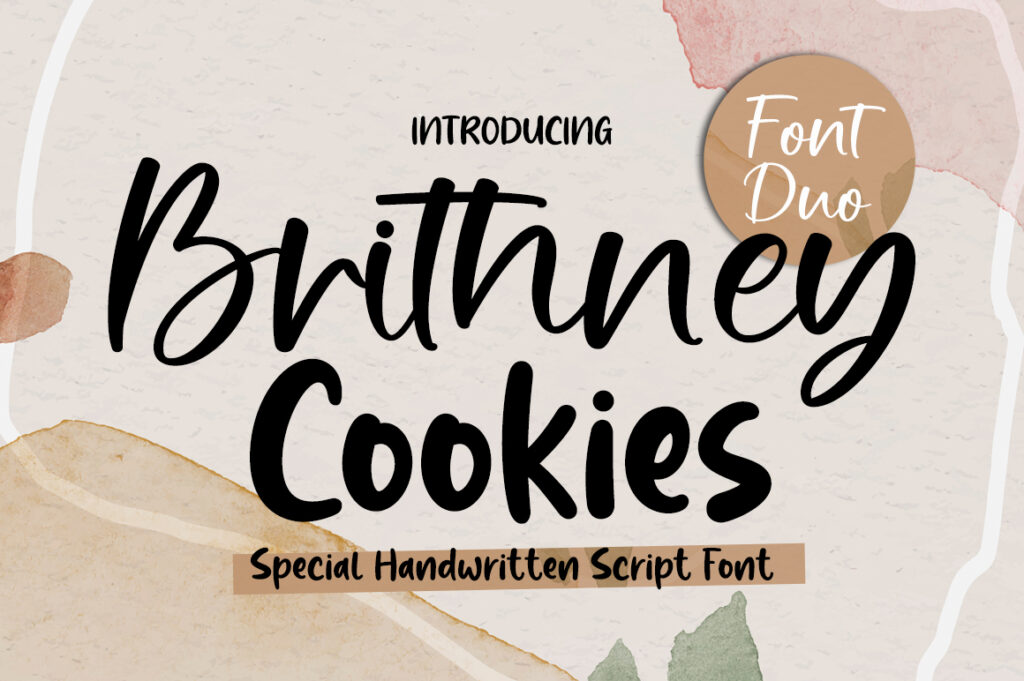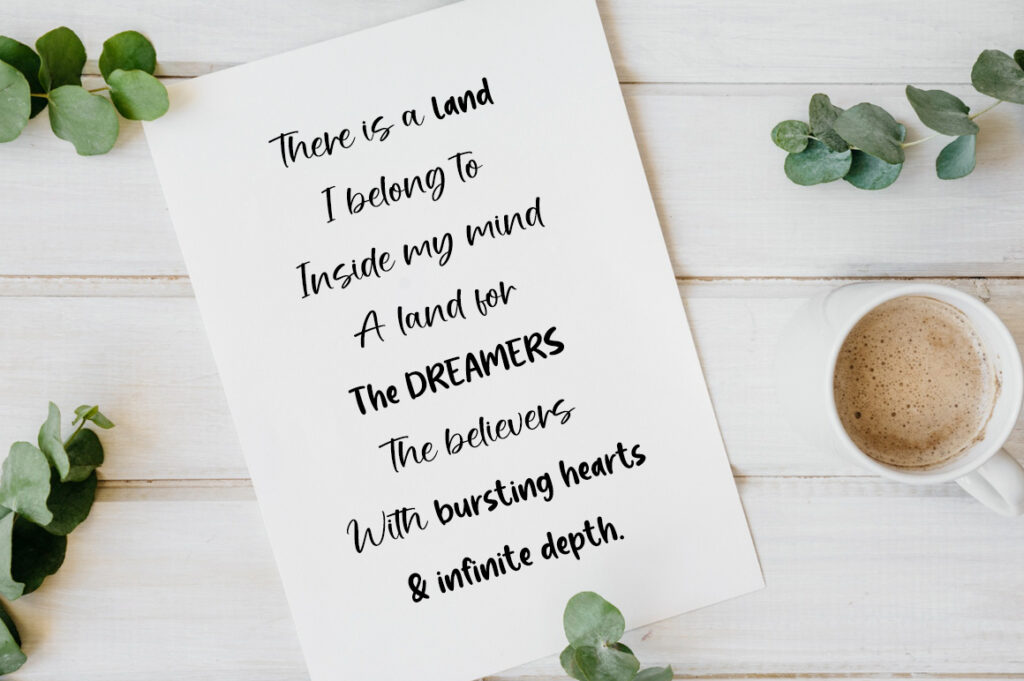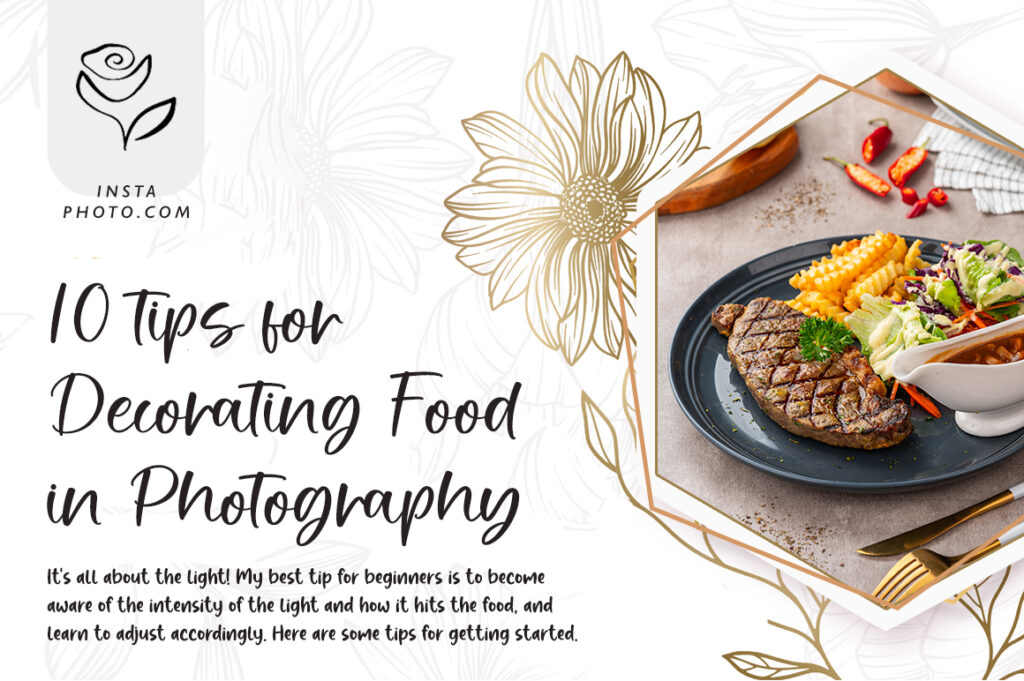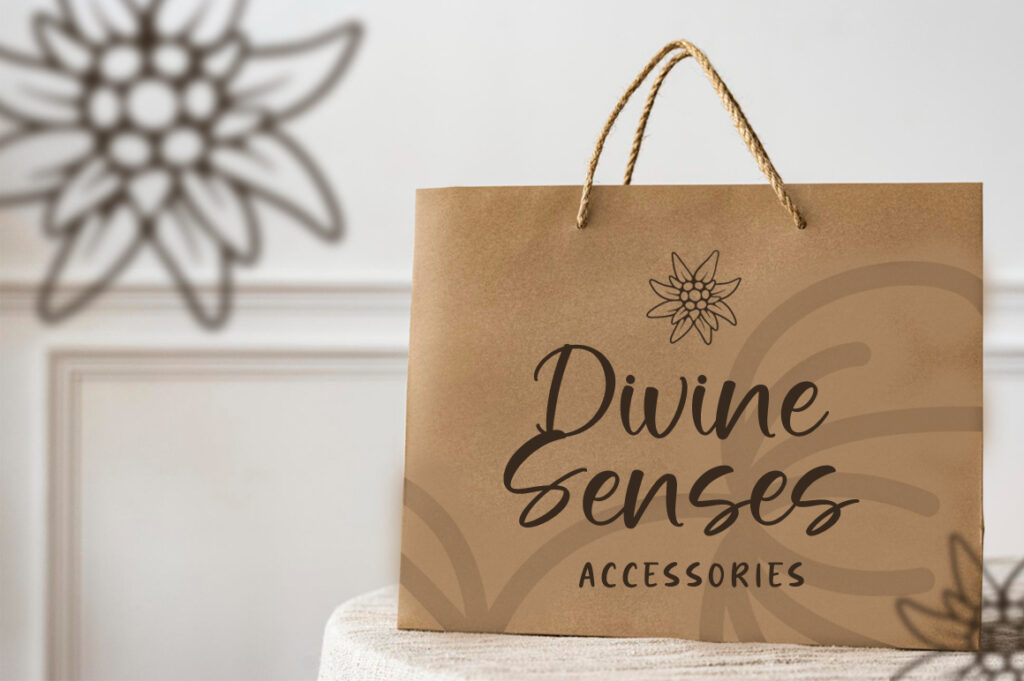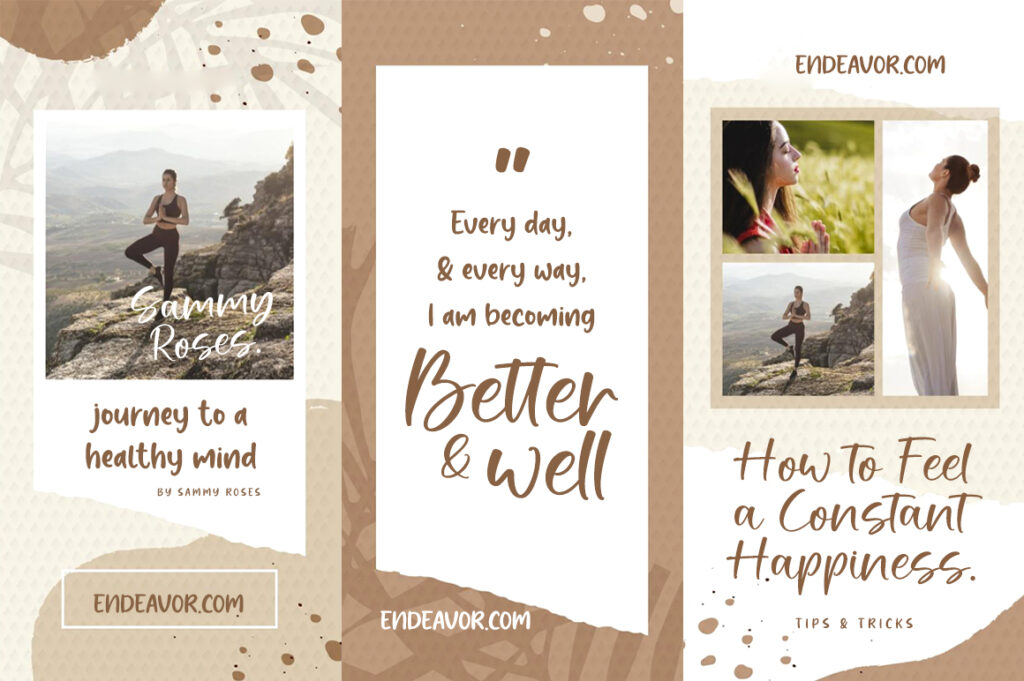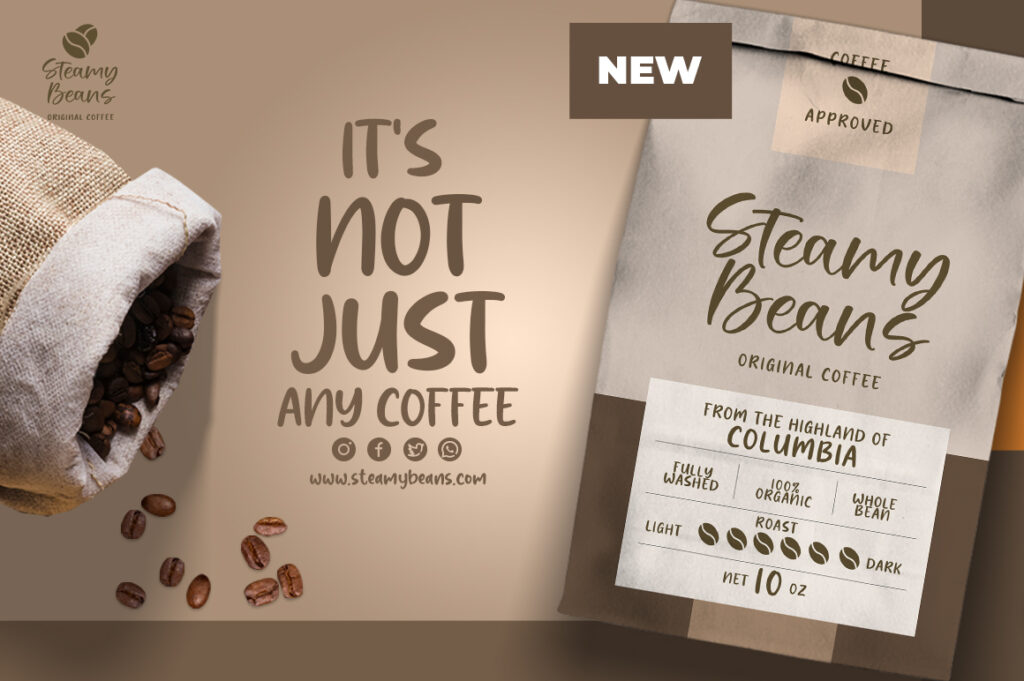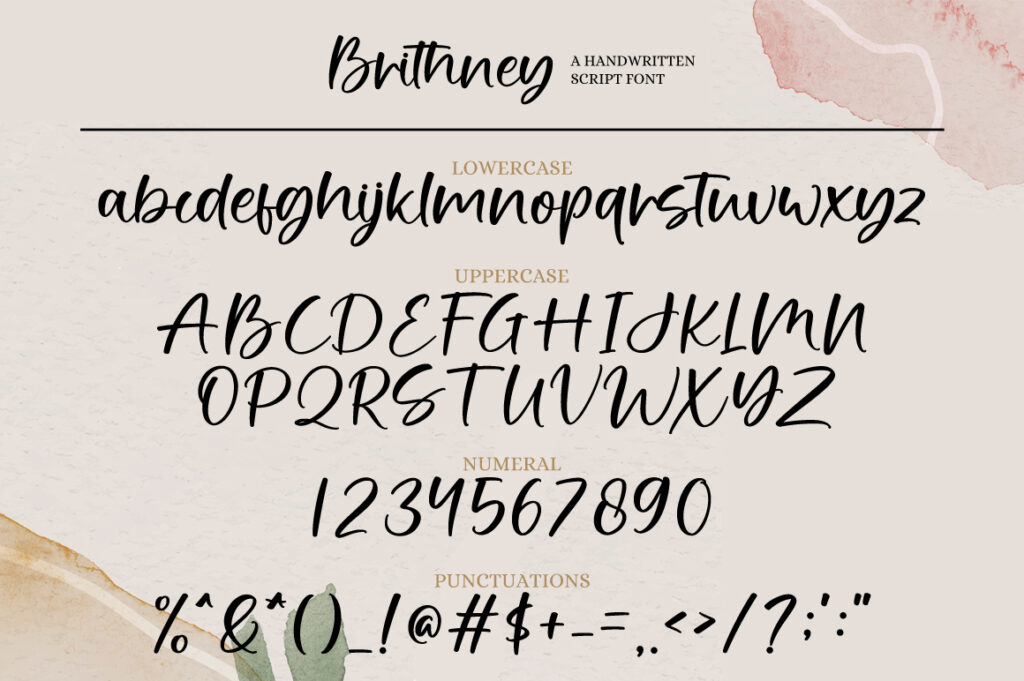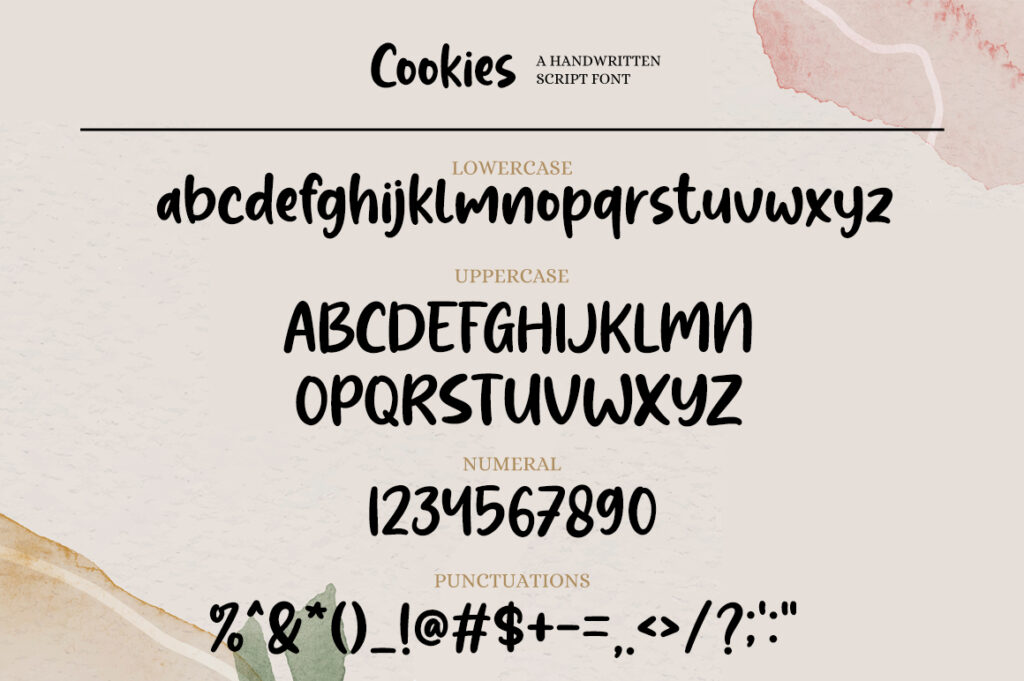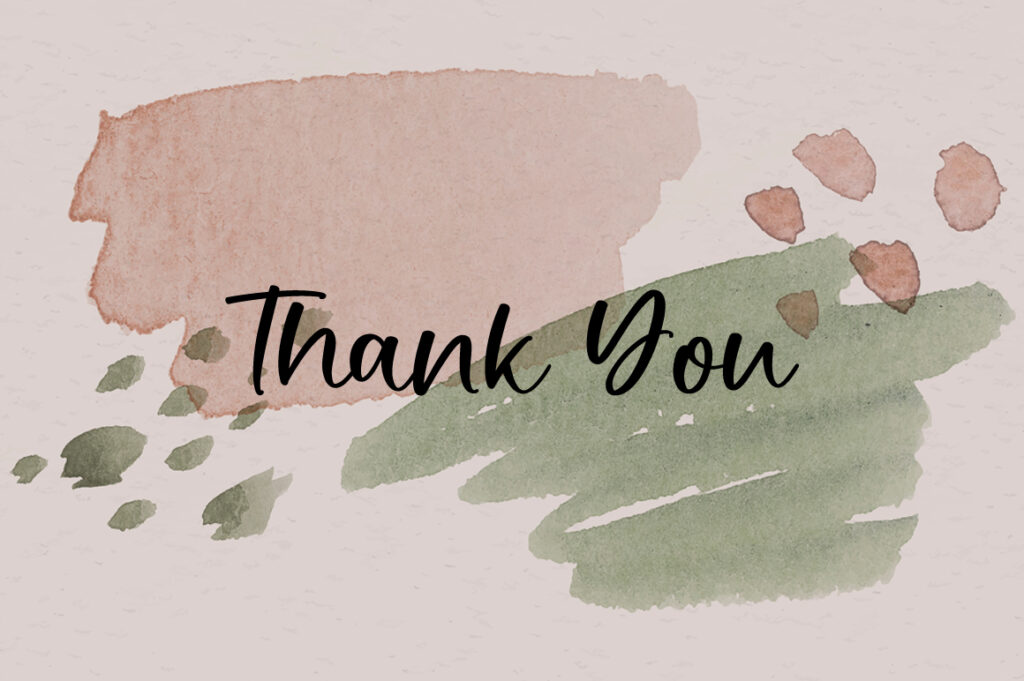
Brithney Cookies consists of two fonts designed to complement each other perfectly. Together or apart, these fonts are ideal for adding a chic and cheery touch to your crafts.